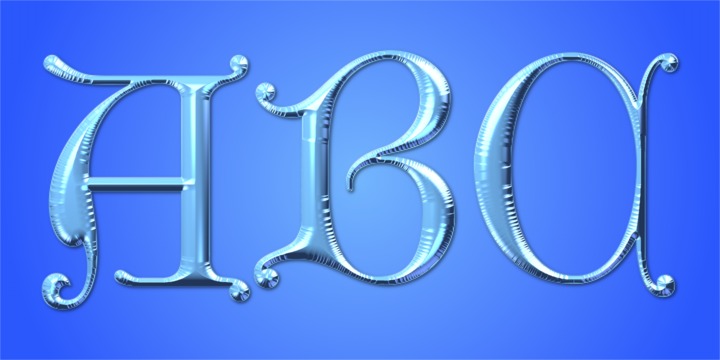
Gothic Initials Three
Designed by: Gerald Gallo
Designed when: 2007
Gothic Initials Three
Gothic Initials Three is part of a three font set including Gothic Initials One and Gothic Initials Two.
Each Gothic Initials font was inspired by the beautifully-written gothic scripts of medieval scribes.
Each font contains the upper case letters A through Z under both the character set and shift+character set. These fonts are intended for use as initials, monograms, drop caps or wherever fancy letters are desired.